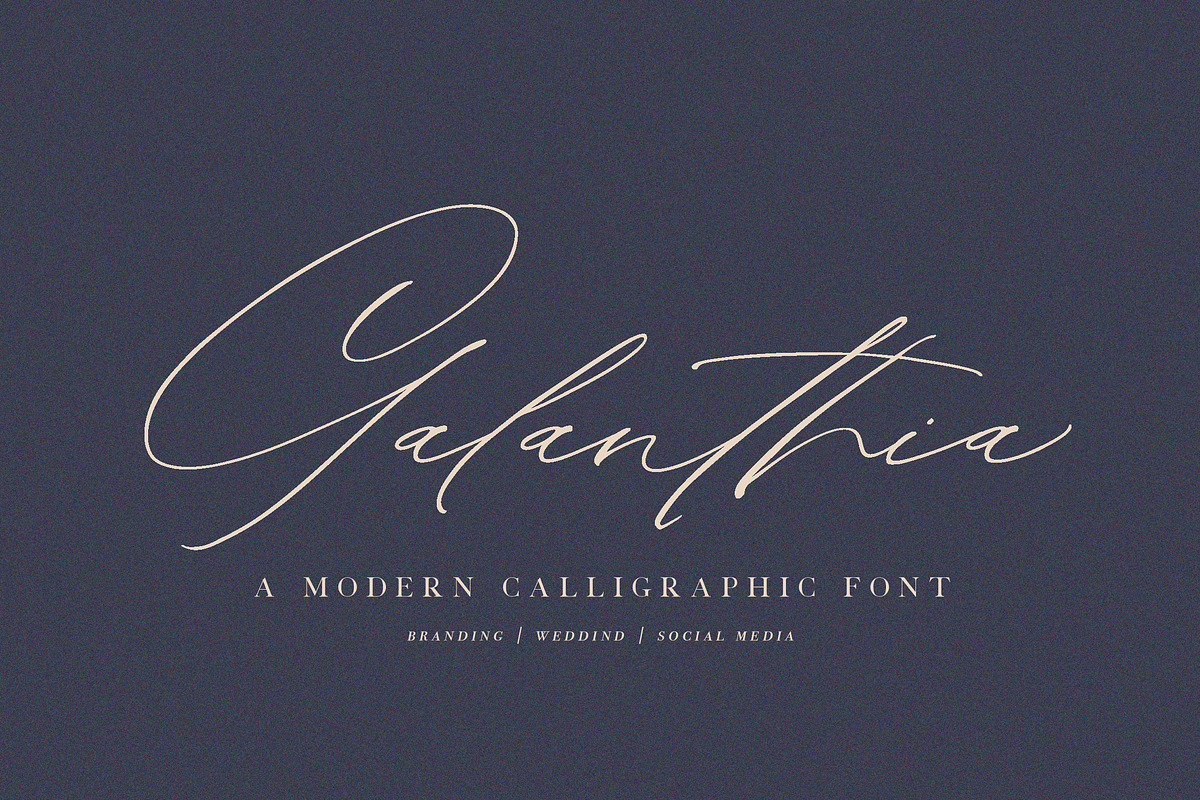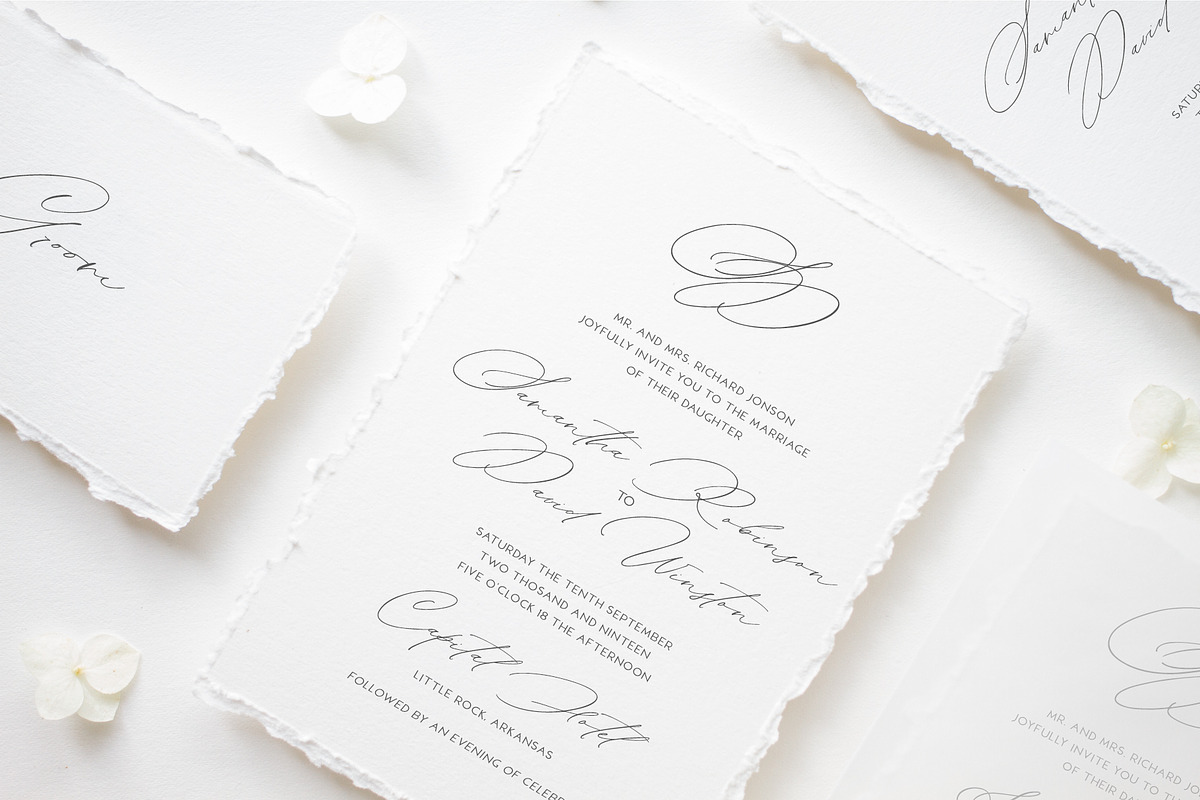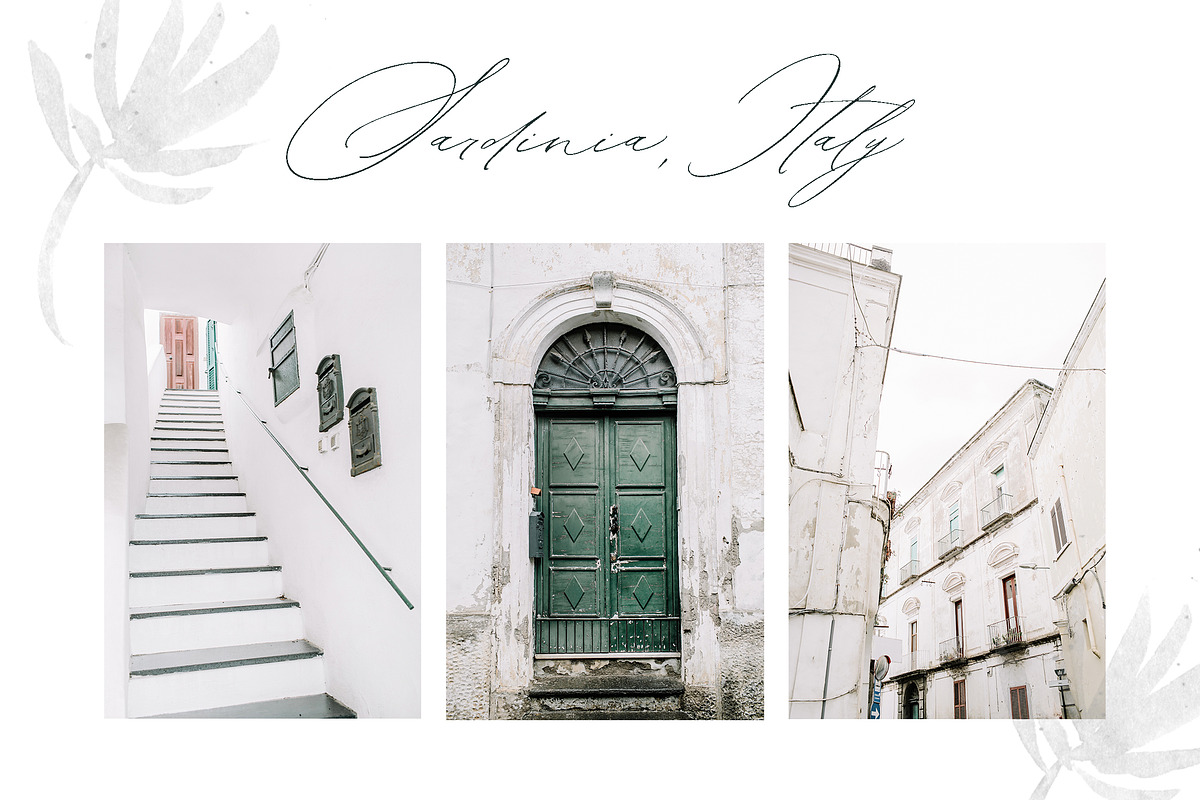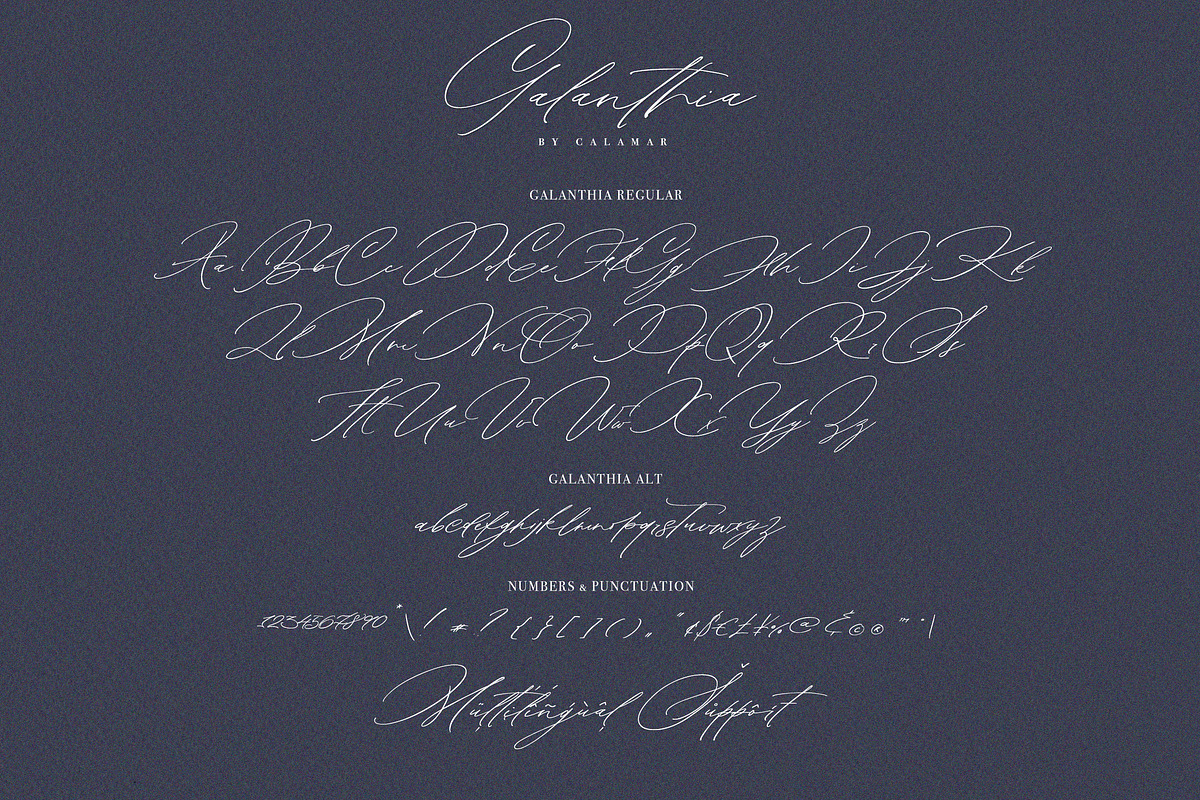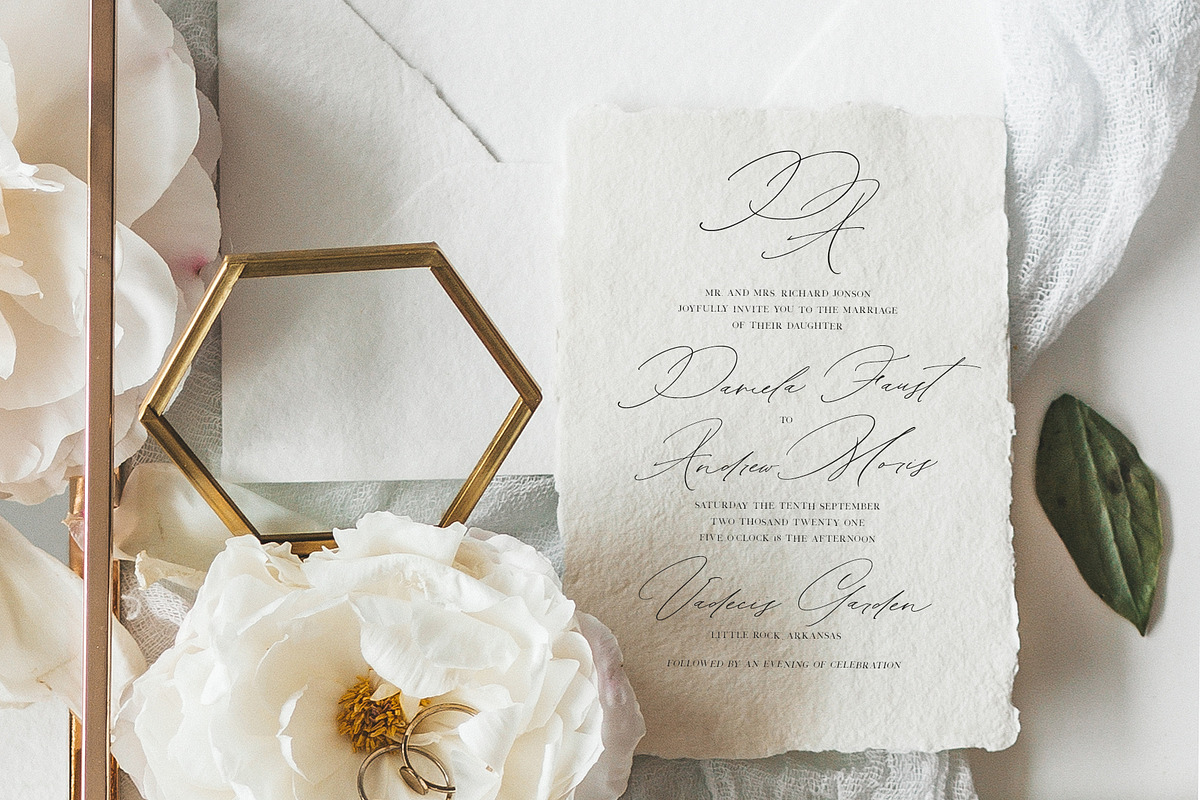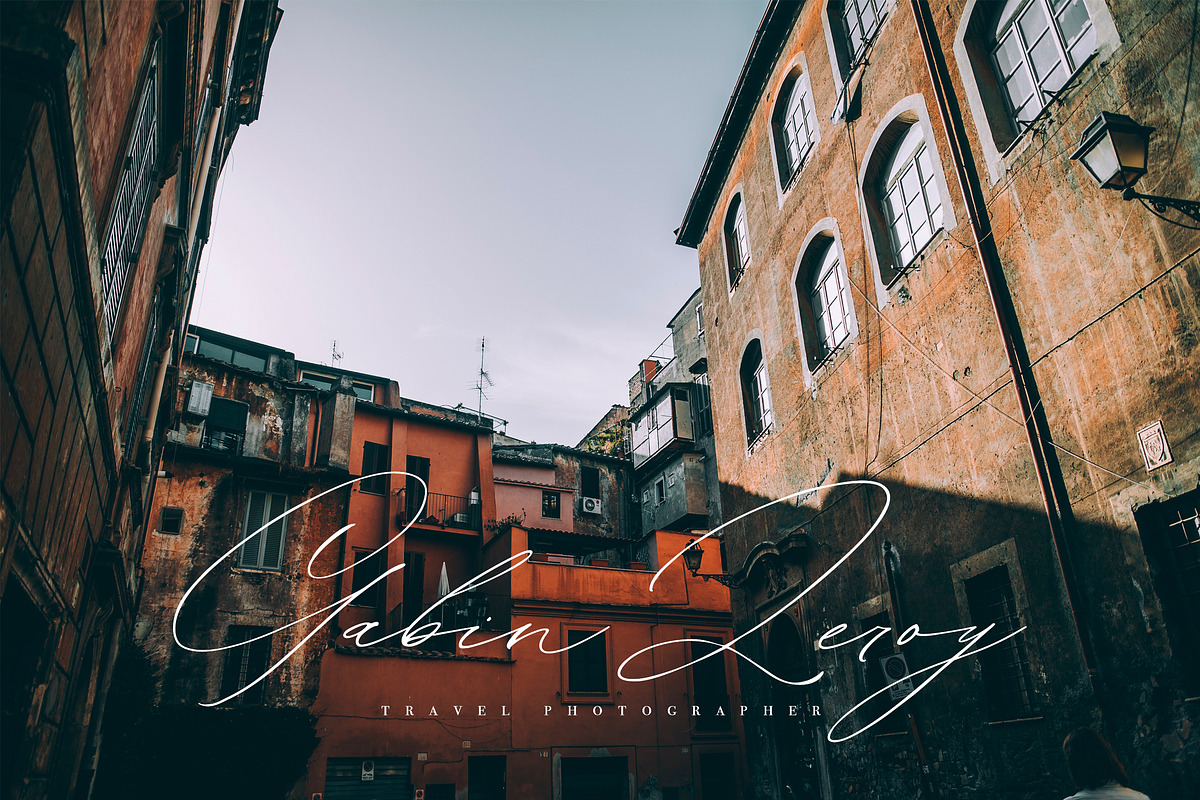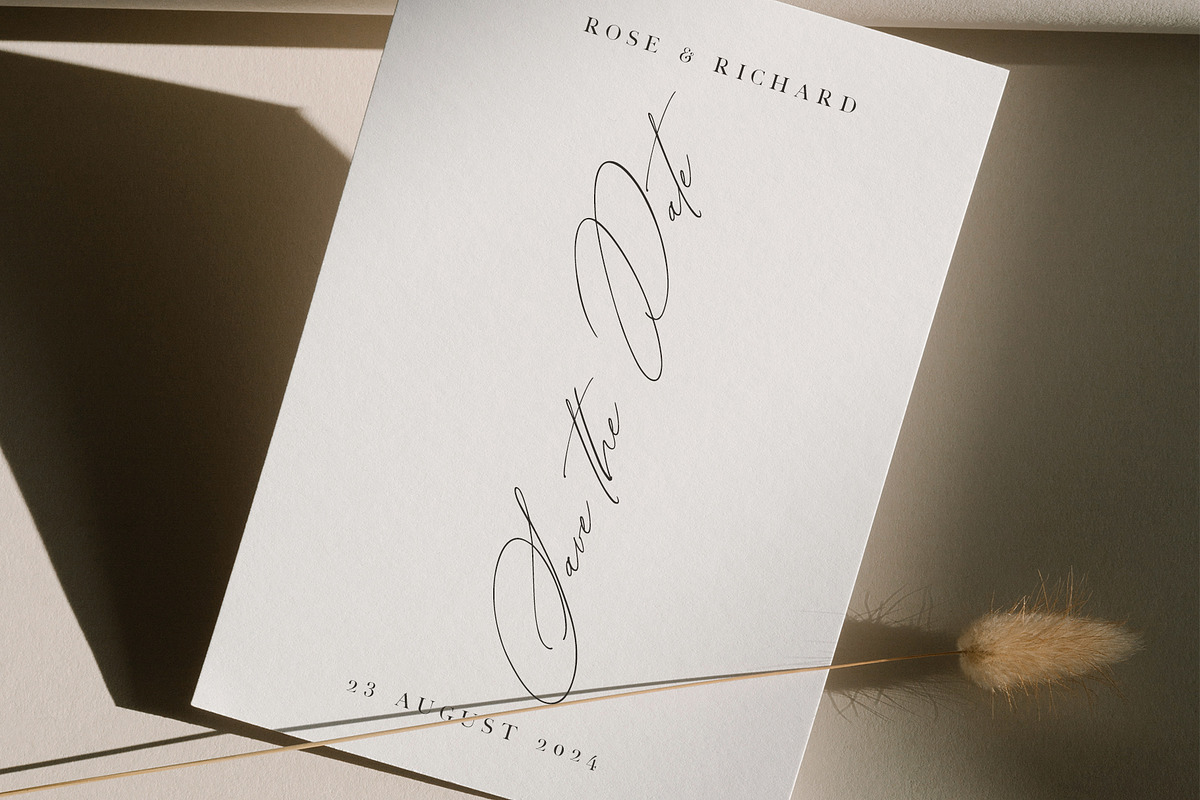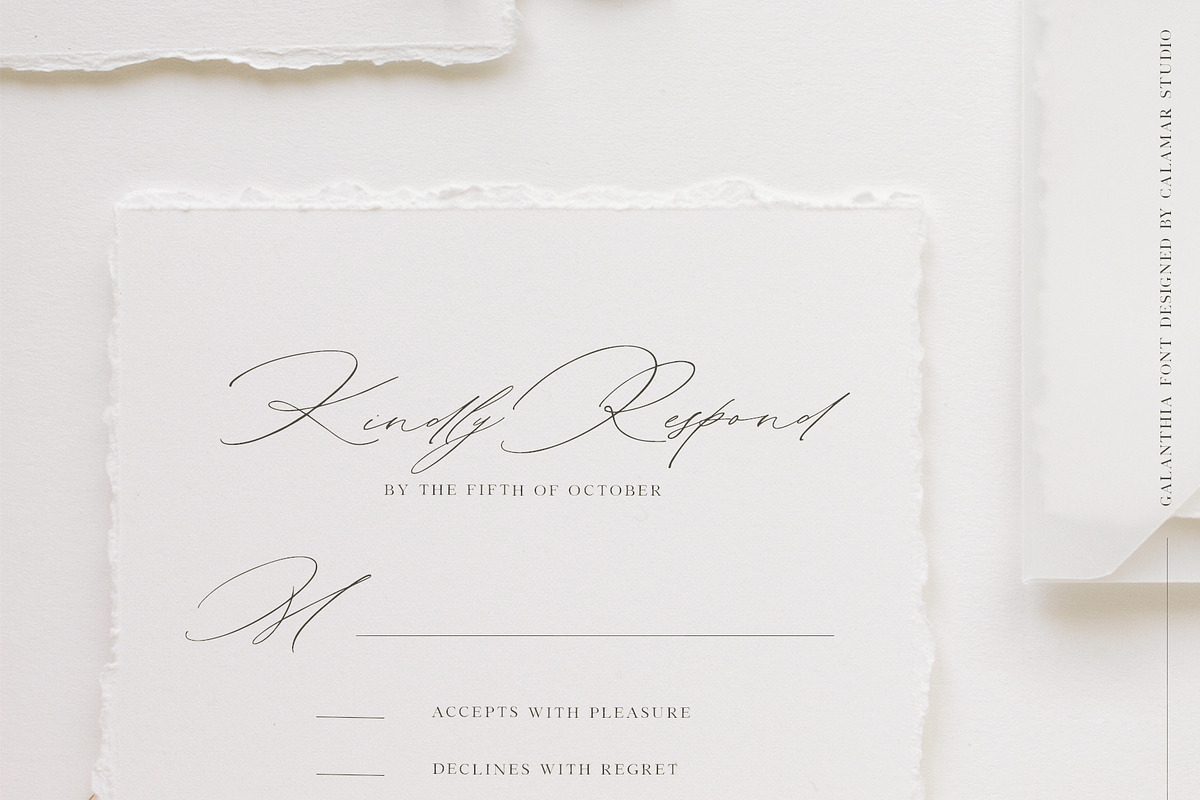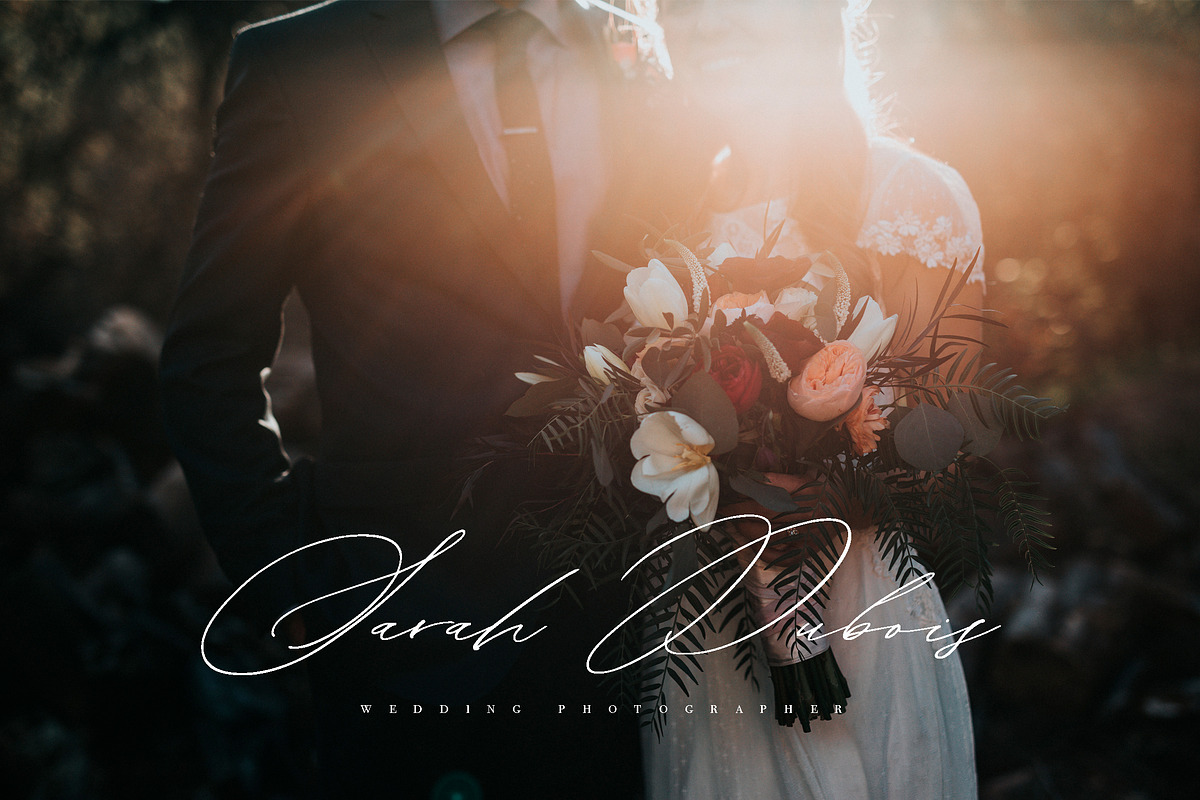
Galanthia Script | Wedding Font
Galanthia Script is an elegant modern calligraphy font that is perfect for branding, wedding invites and cards and so on.
Galanthia Script includes Upper and Lowercase Basic Characters, Numbers and Punctuation.
Galanthia Script is also available for Western European, Central European and South Eastern European Languages. You can check your language typing characters in text box below.
OPEN TYPE FEATURES (OTF) include:
- Stylistic alternates for lowercase glyphs;
- Stylistic alternates for final lowercase glyphs (longer tails);
- Standard and Discretionary Ligatures;